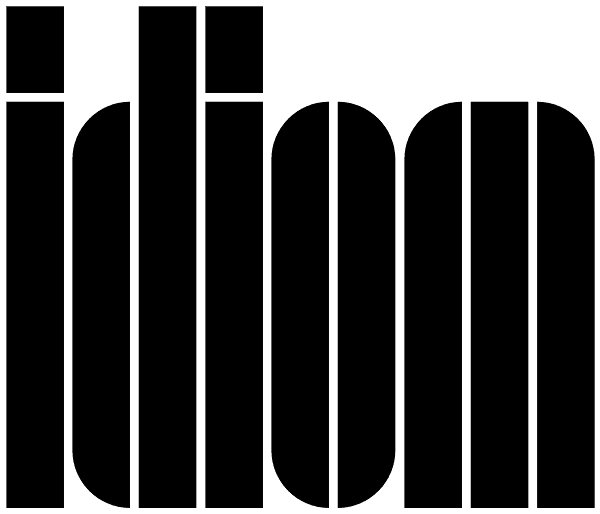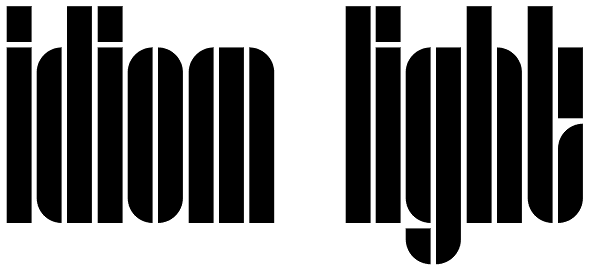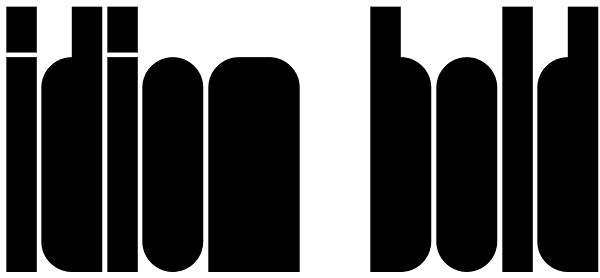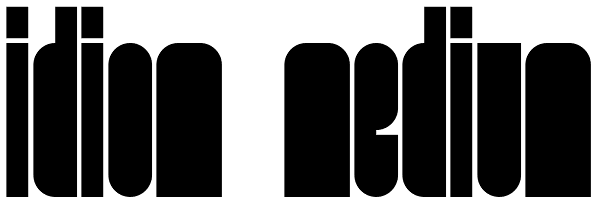
Idiom
Idiom is an extra-condensed, tightly spaced display face with congruent forms exuding a strong sense of rhythm and elevation. The basic stenciled geometric shapes are reminiscent of the decorative style found with P22 Albers and Futura Black...